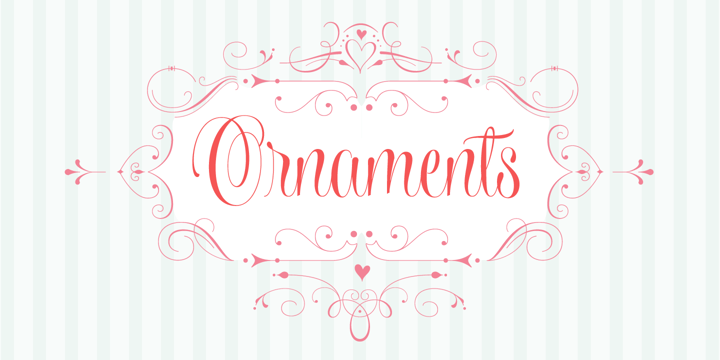
Wishes Script
Wishes Script by Typesenses
Wishes Script Font Family was designed by Sabrina Mariela Lopez and published by Typesenses. Wishes Script contains 18 styles and family package options. More about this family
About Wishes Script Font Family
Plenty of swashes, ligatures, beginning and ending shapes, Wishes is a wit option for invitations, cards, stationery, fashion and apparel, among a wide range of uses. The curves of the cursive style are neither too solemn or pompous, its grace and playfulness are more 1950s than 1750s. This family offers the designer an additional decorative toolkit full of frames, ribbons, hearts, flowers and ornaments, plus a collection of caps and small caps.
Wishes Script Pro includes the complete set of Script characters plus Ornaments and Caps. The family offers optically optimized Display and Text styles for each of the weights: Light, Regular and Bold.
Use Wishes to express your greetings!
Designers: Sabrina Mariela Lopez
Publisher: Typesenses
Foundry: Typesenses
Design Owner: Typesenses